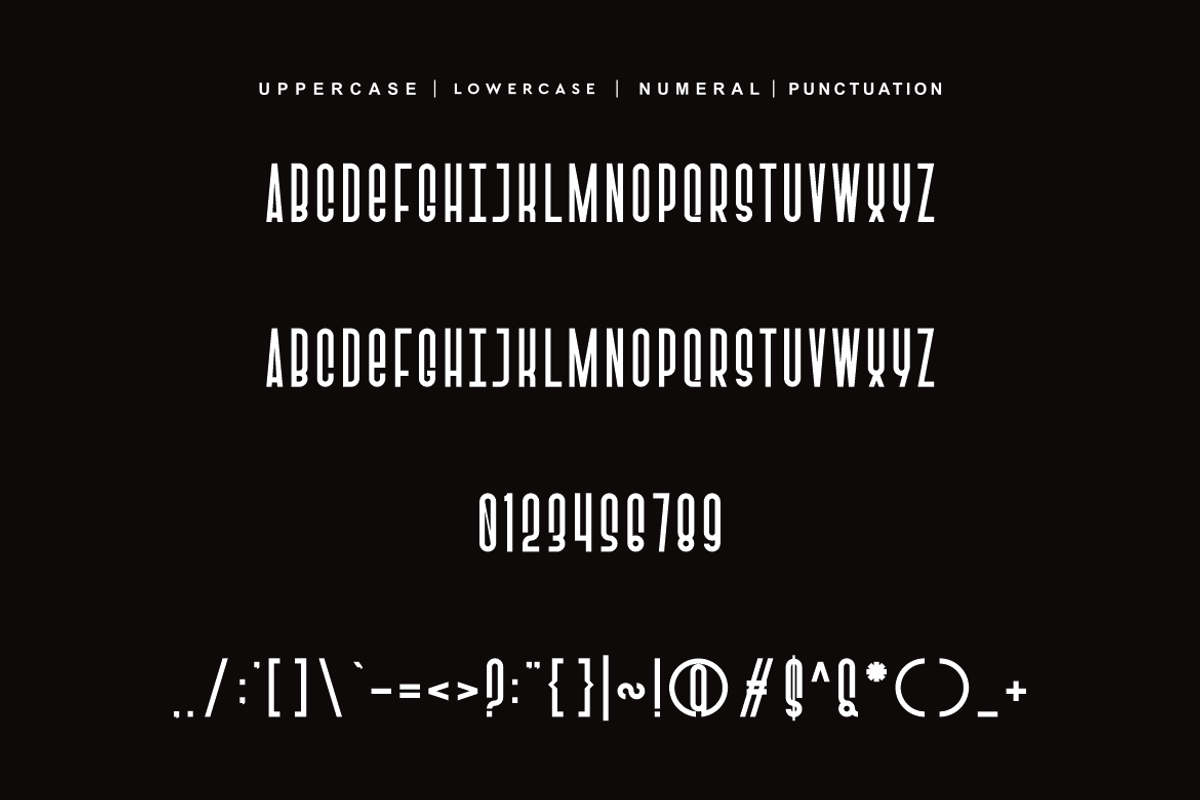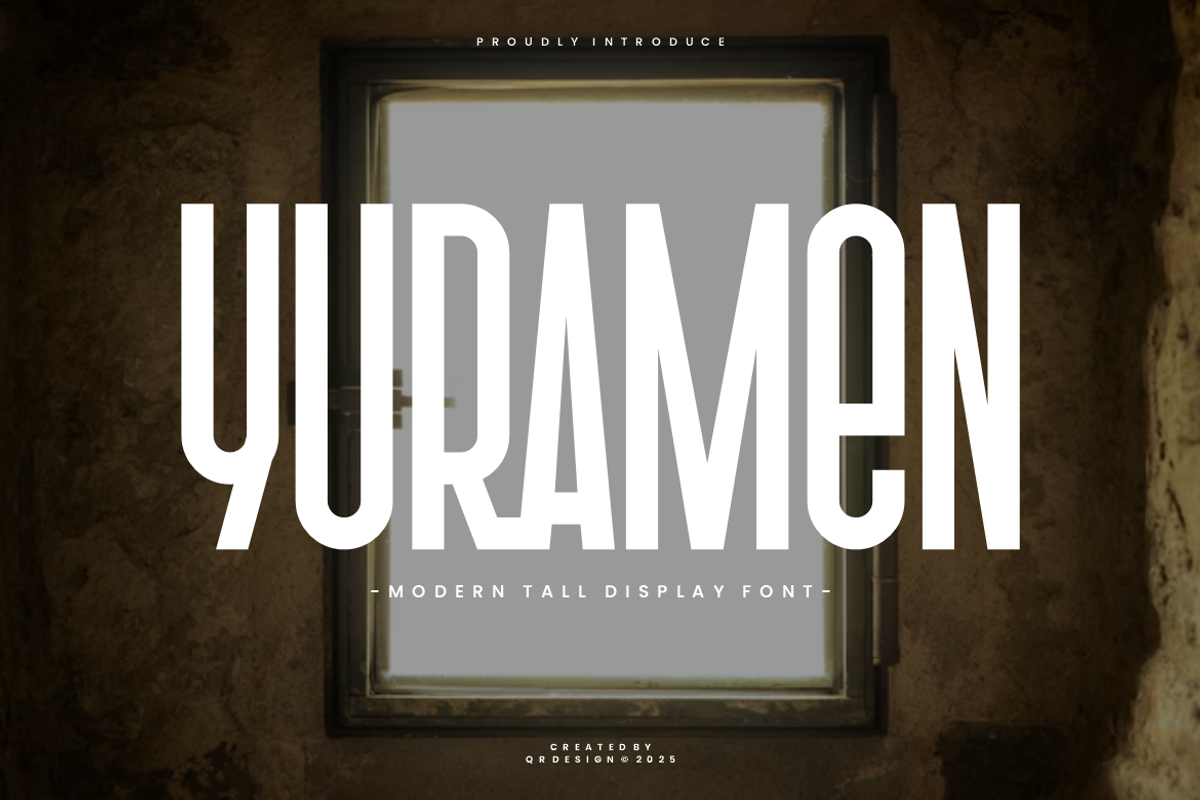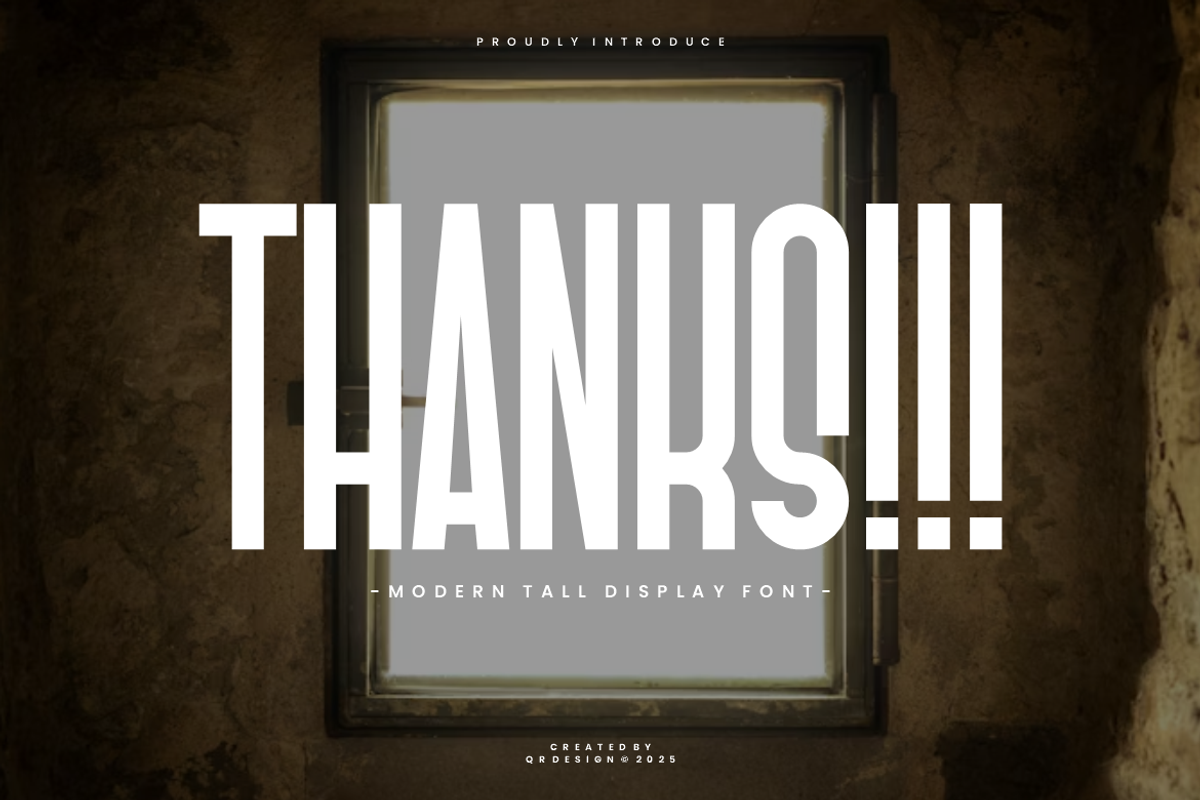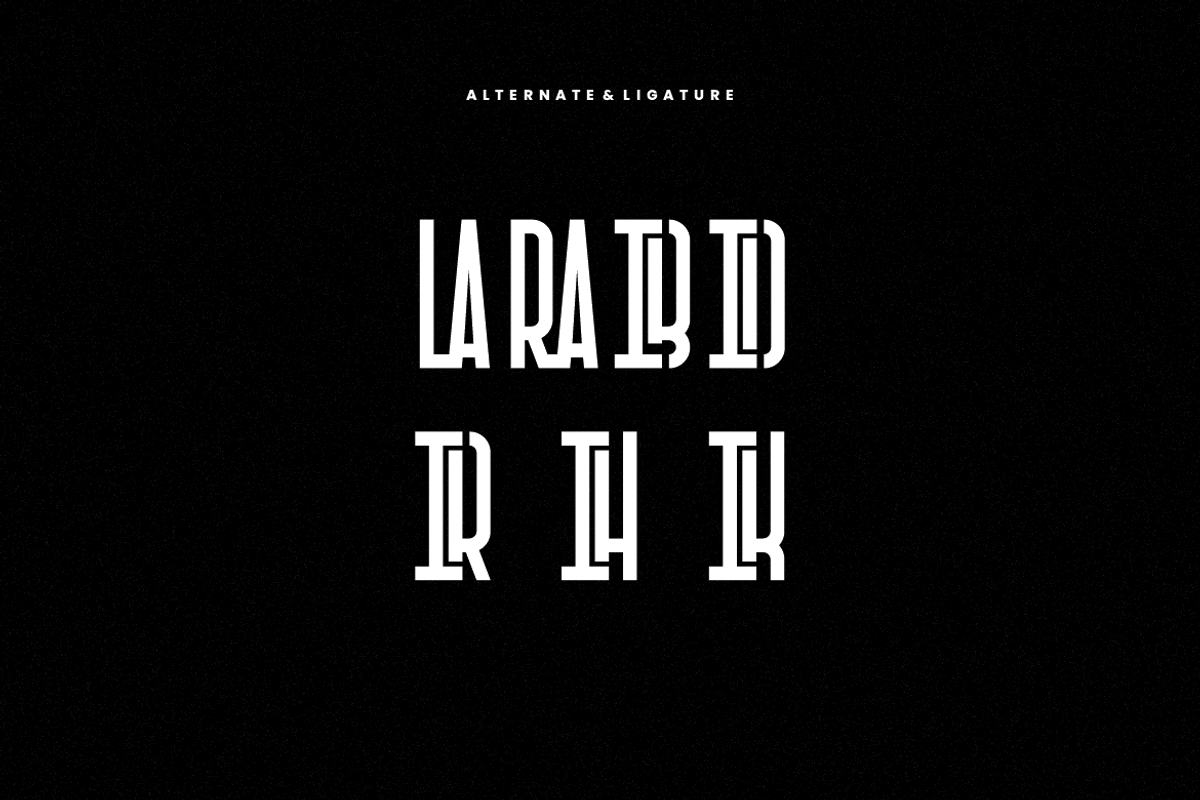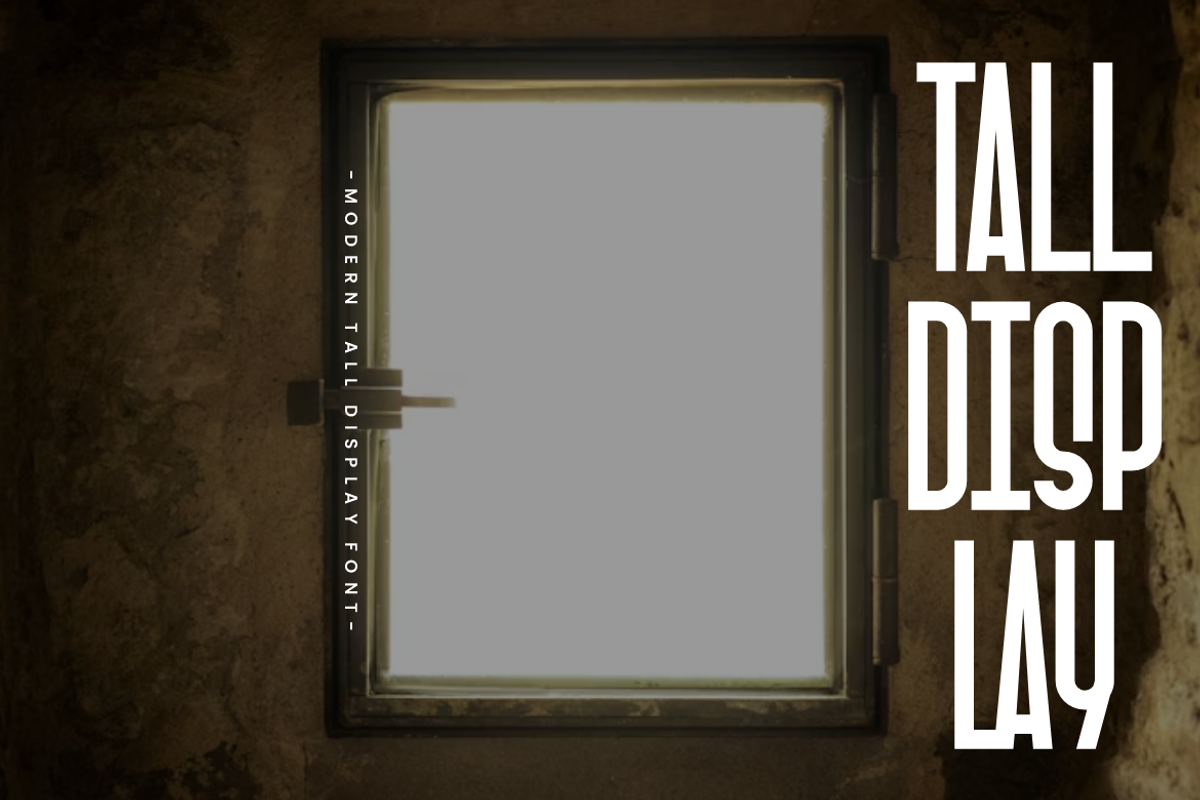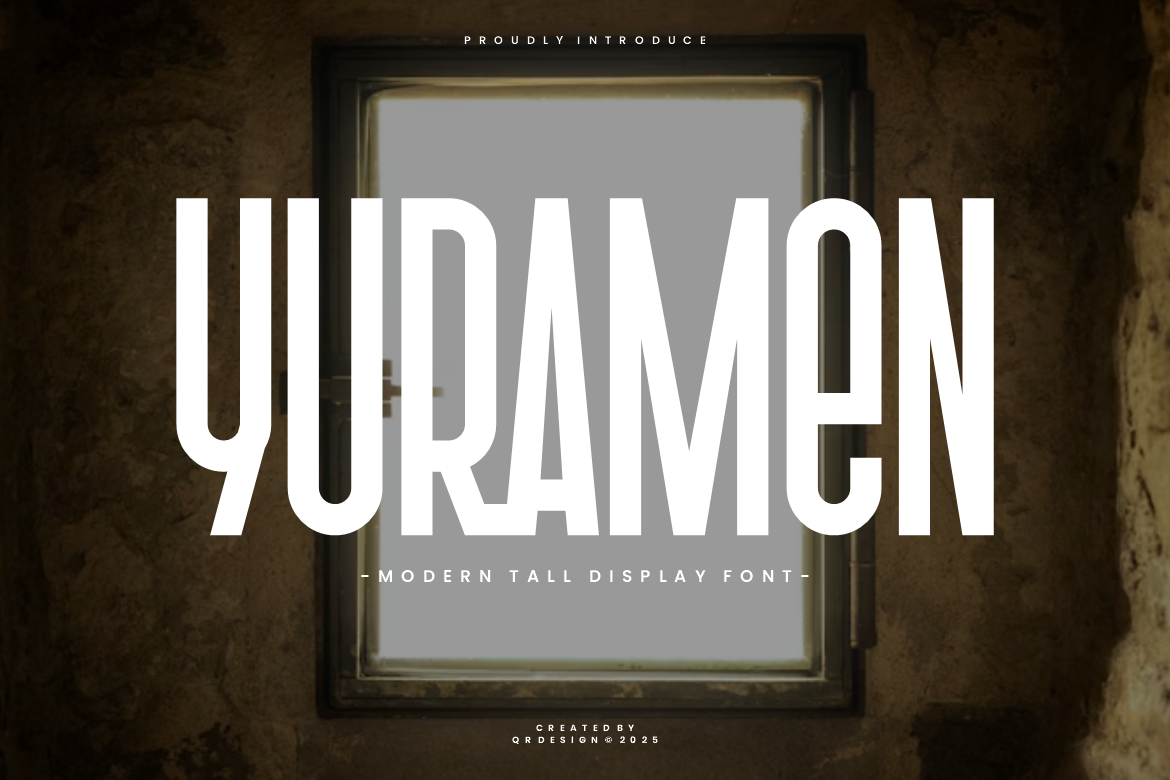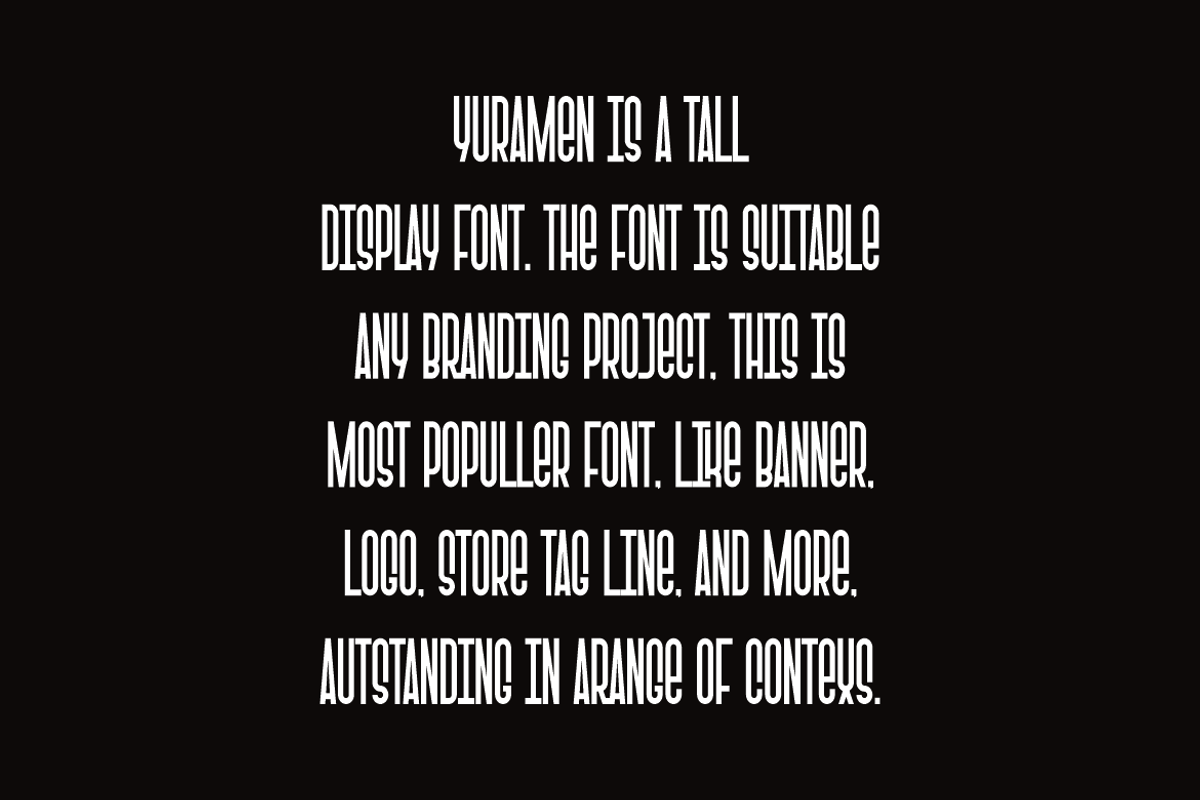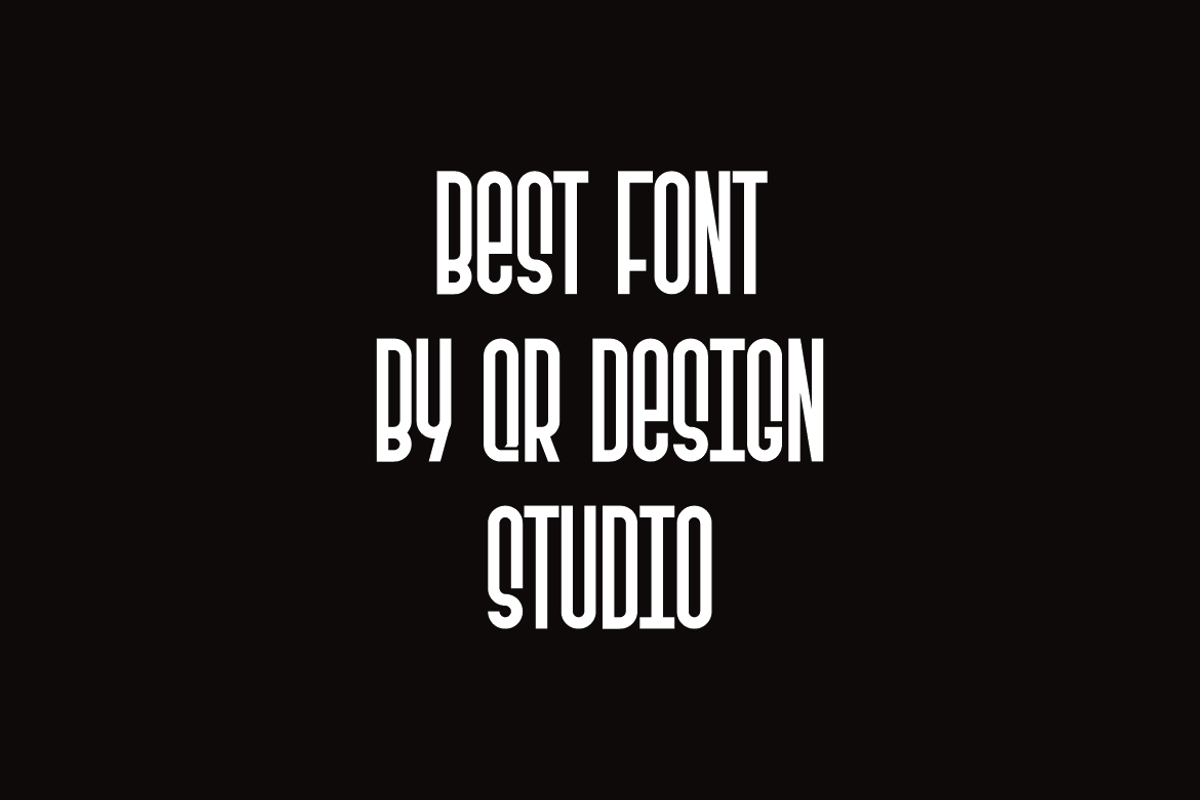
Yuramen - Tall Font
Yuramen Font is a sans serif and authentic display font. The font is suitable for any branding project like poster, logo, sport, and many more. Outstanding in a wide range of contexts.